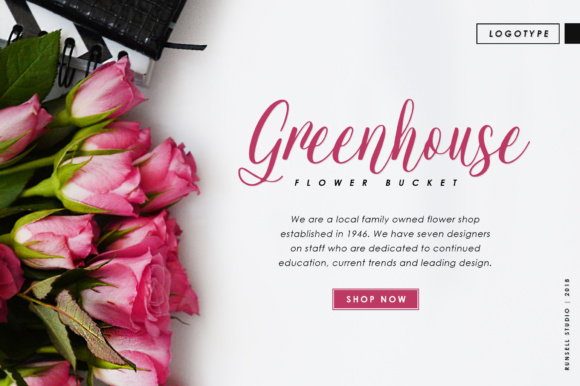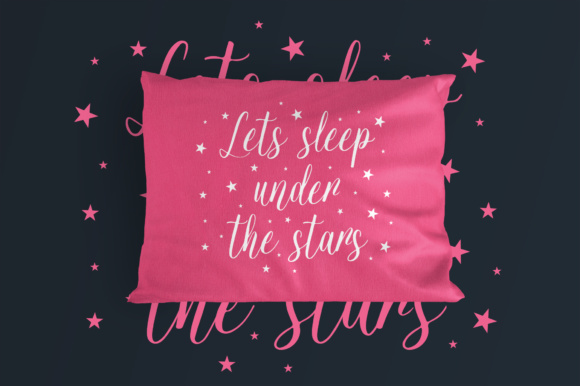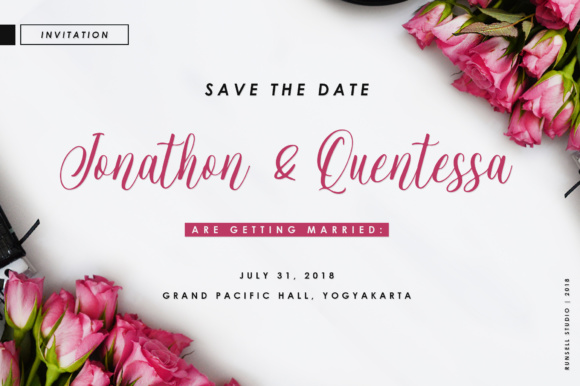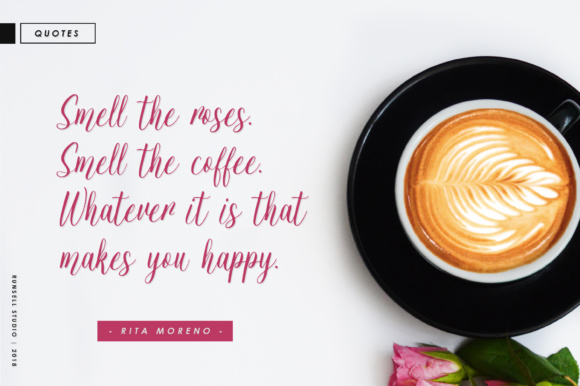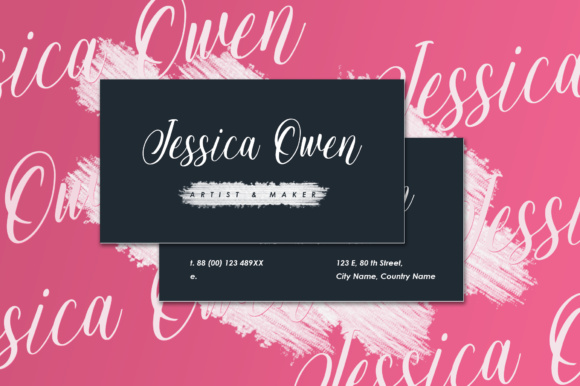
Jessie Odelya Font
About Jessie Odelya Font
Jessie Odelya is a perfectly elegant and beautiful font pair that includes two modern script fonts. This font collection is stylish, fresh and ideal for adding a special look to your design. Jessie Odelya can be used for various purposes such as: logotype, branding, magazines, websites or blog headlines and much more!